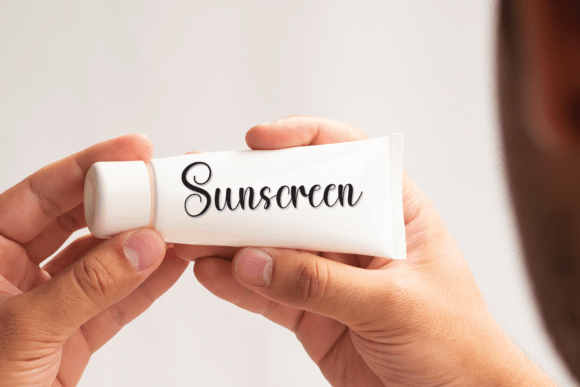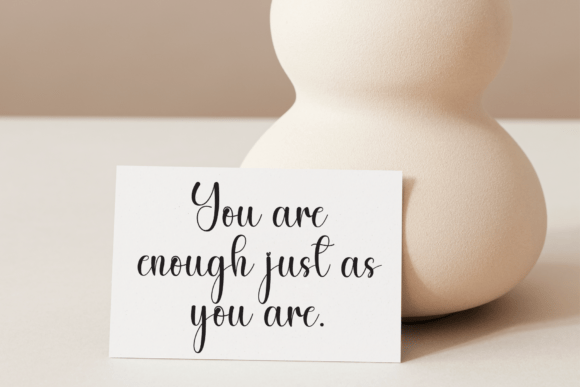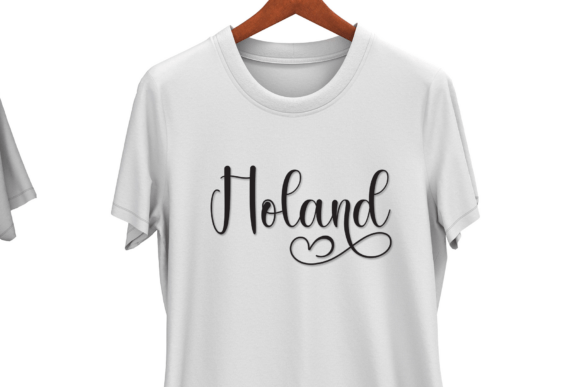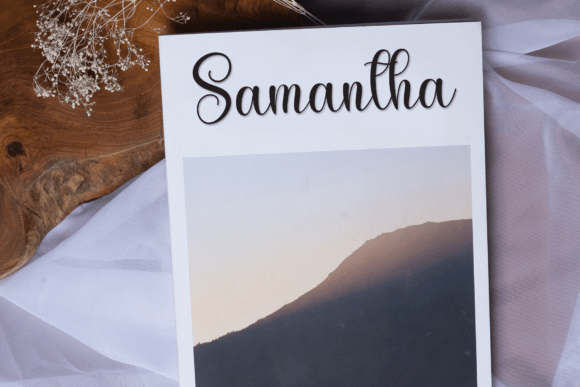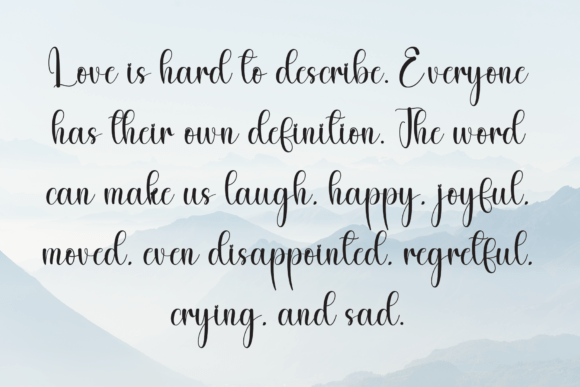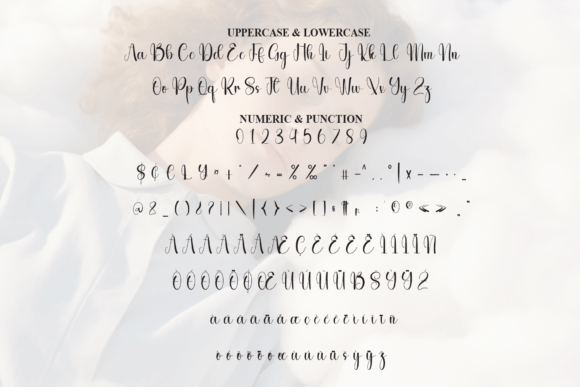
Welcome to the Delightful World of Dreaming Font
Imagine yourself working on a wedding invitation project, trying to find the perfect font that captures the essence of the special day. The font needs to be elegant, yet playful; sophisticated, yet approachable. You’ve scoured the internet, tried countless fonts, but nothing seems quite right. That was me, not too long ago. But then, I stumbled upon Dreaming Font, and it was love at first sight! ✨
The Magic of Dreaming Font
Dreaming Font is a handcrafted, expressive script font that’s perfect for creating a warm and enchanting atmosphere in your design works. With its unique blend of casual charm and the genuine feel of handwritten text, this font brings magic to wedding invitations, heartfelt greeting cards, and anywhere else a spritz of joviality is needed.
- ✨ Unique and playful character set that’s sure to make your designs stand out
- ✅ Easy to read and understand, even at smaller font sizes
- 💫 Supports OpenType features, glyphs, and stylistic alternates for added creativity
While Dreaming Font is an amazing font, there are a few things to keep in mind: 🤔
- ⚠️ Some characters may require manual kerning for optimal spacing
- ⚠️ Limited support for non-English languages
The Designer Inspiration Behind Dreaming Font
Dreaming Font was created with the intention of bringing a touch of magic to your designs. The designer, inspired by the world of handwriting and calligraphy, aimed to create a font that would evoke feelings of warmth and playfulness. With its unique character set and OpenType features, Dreaming Font is sure to become a favorite among designers and crafters alike.
Q: Is Dreaming Font suitable for body text?
A: While Dreaming Font is a beautiful font, it’s best suited for headlines, titles, and short paragraphs. For body text, a clearer font may be more suitable.